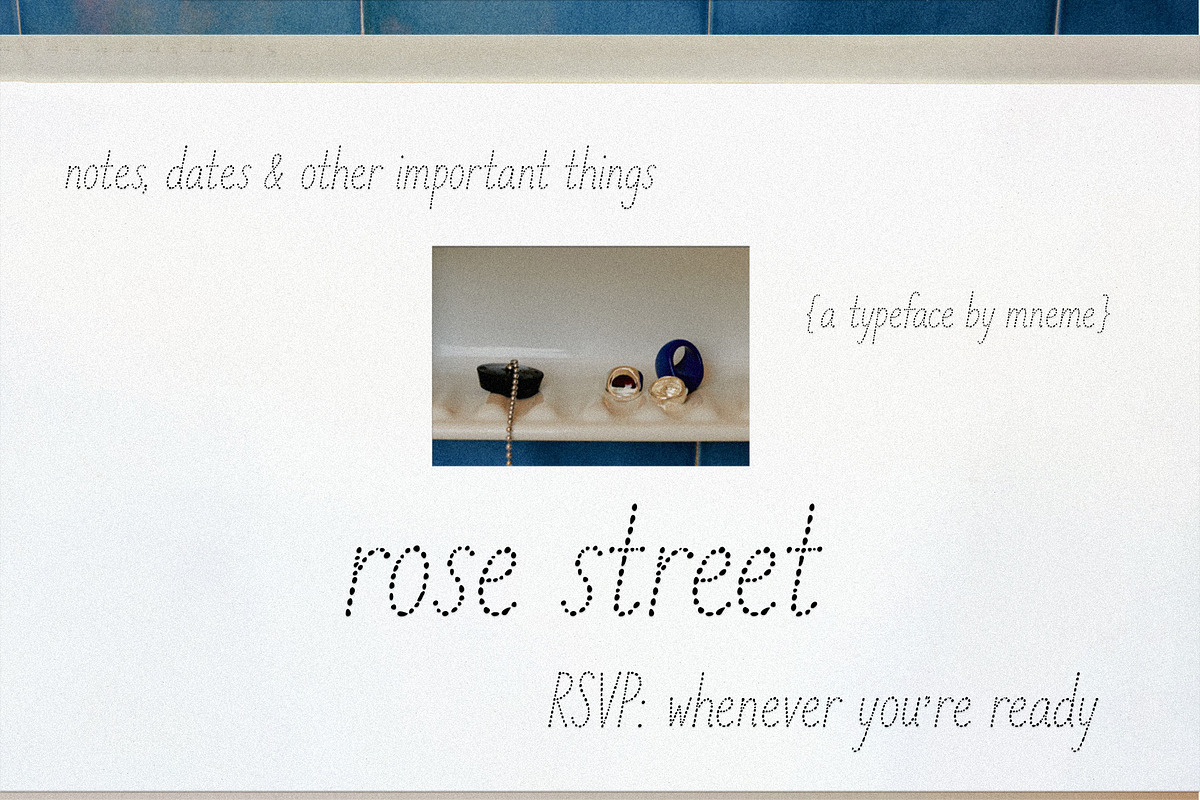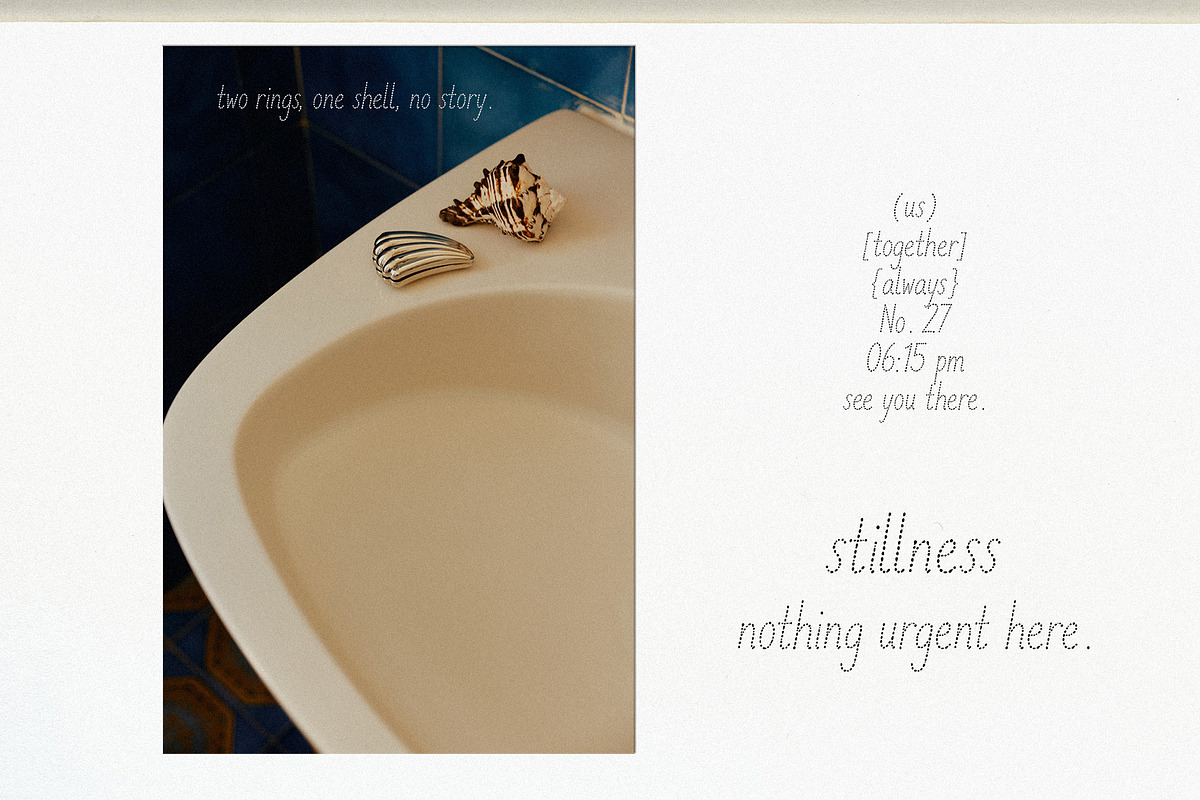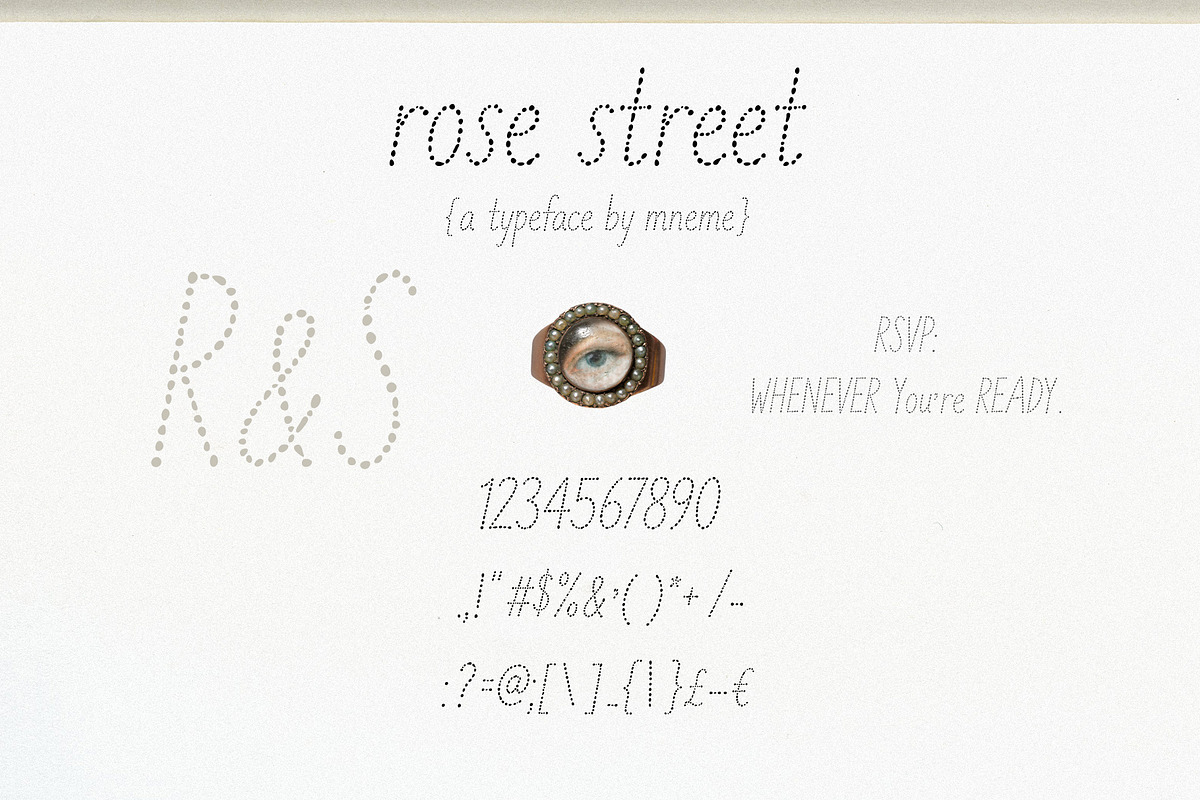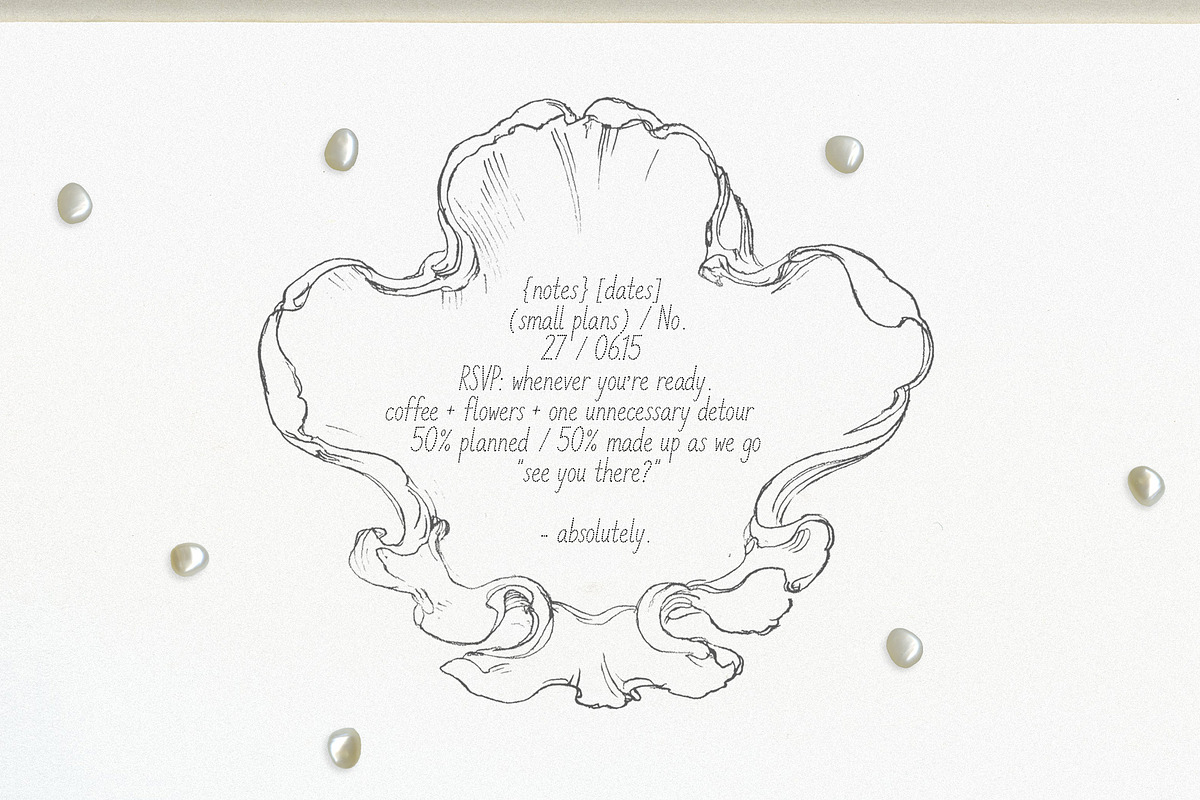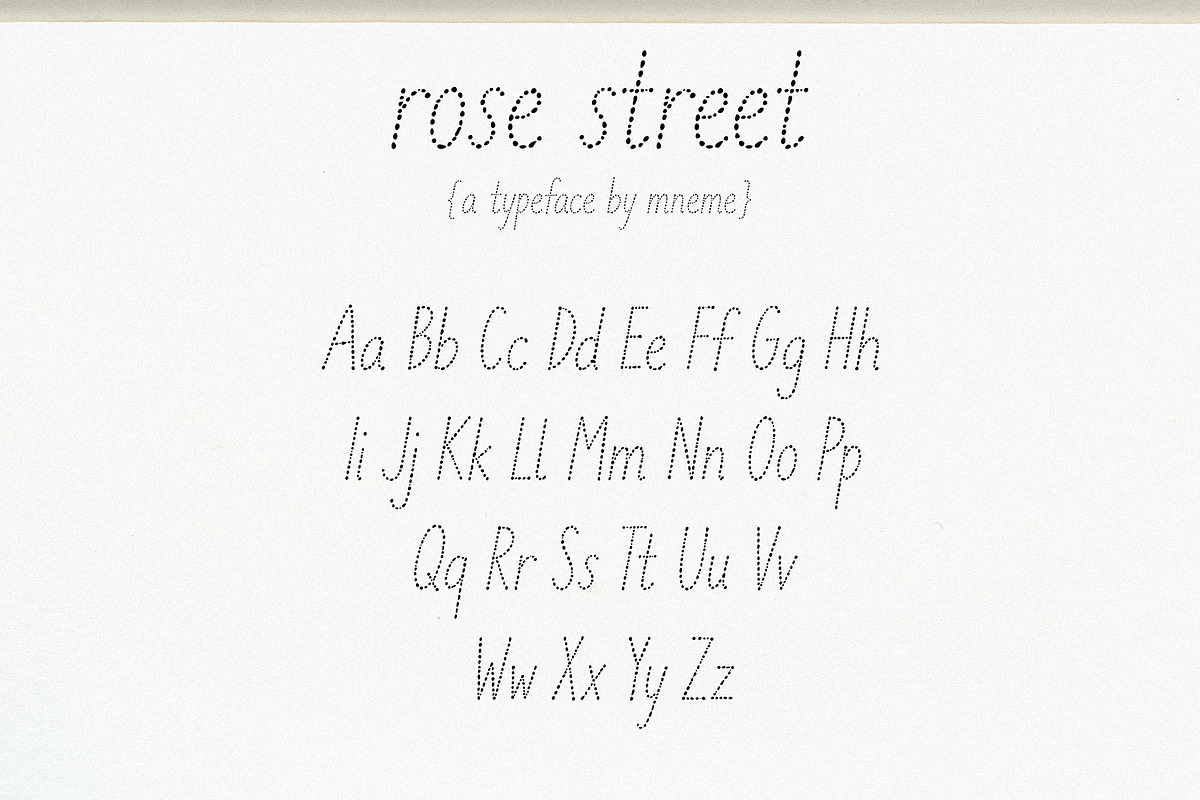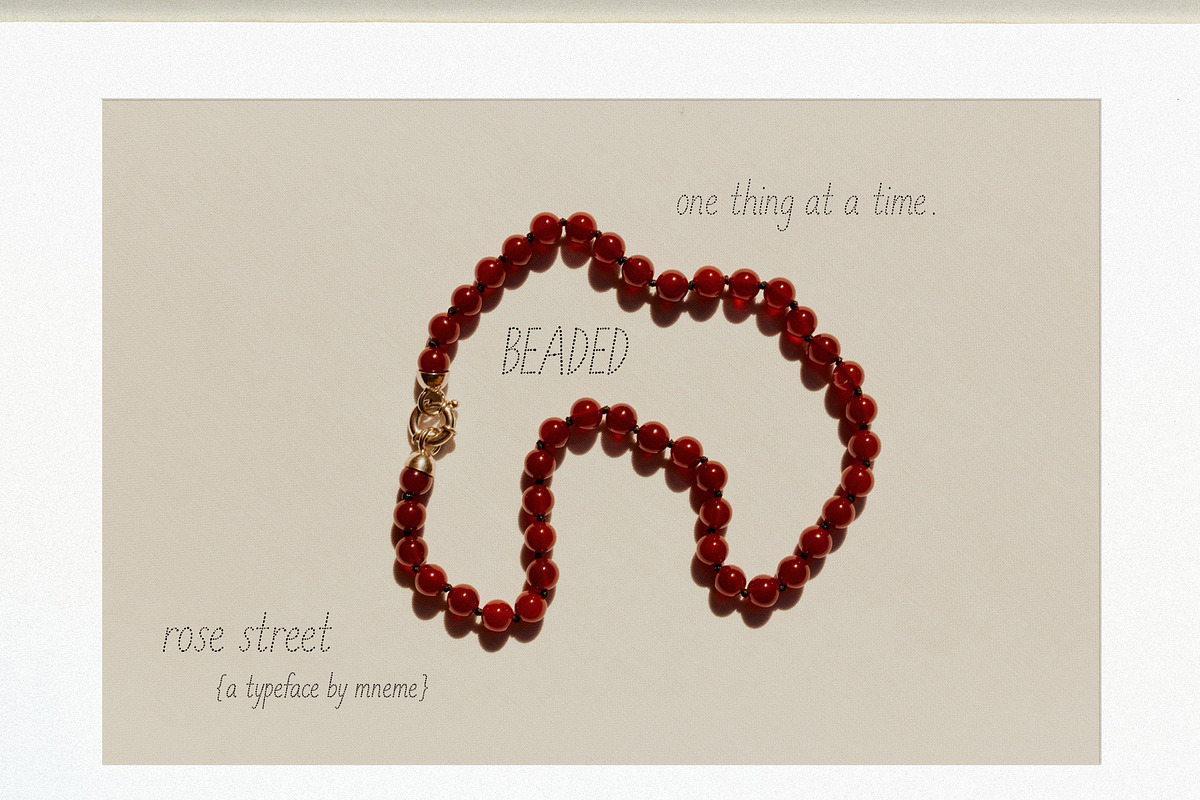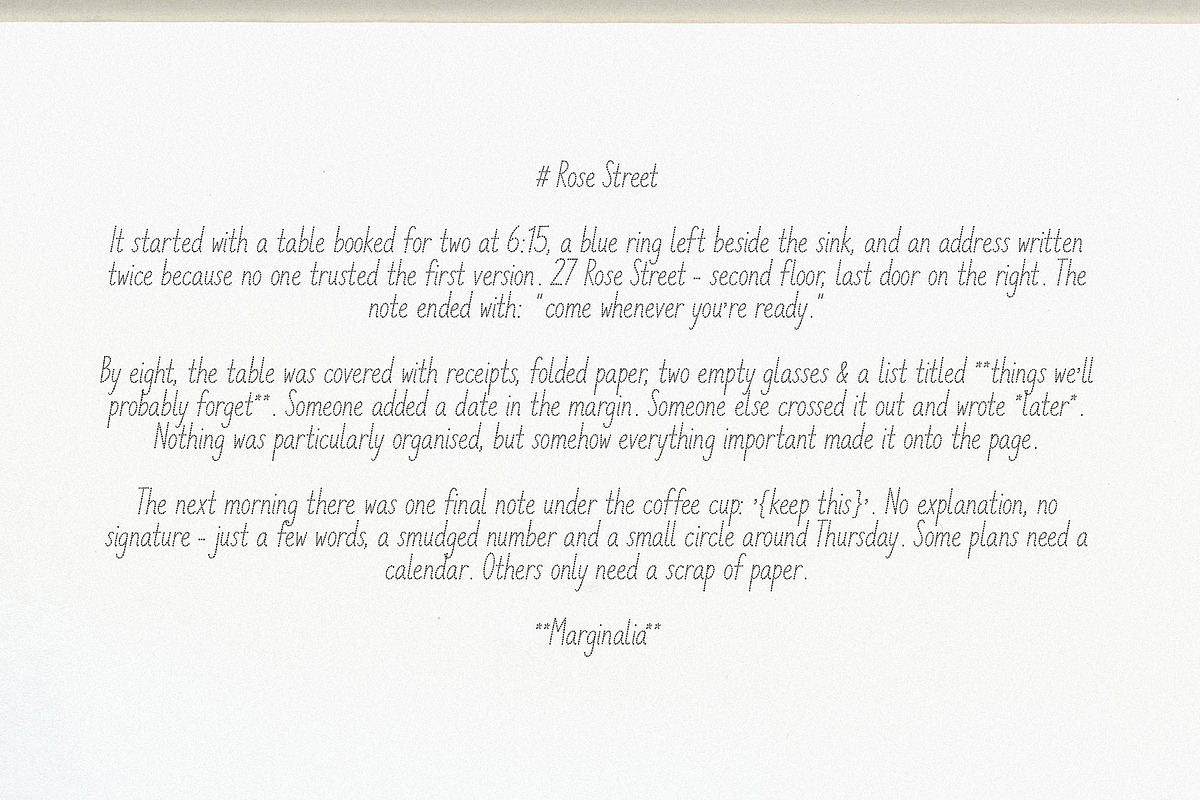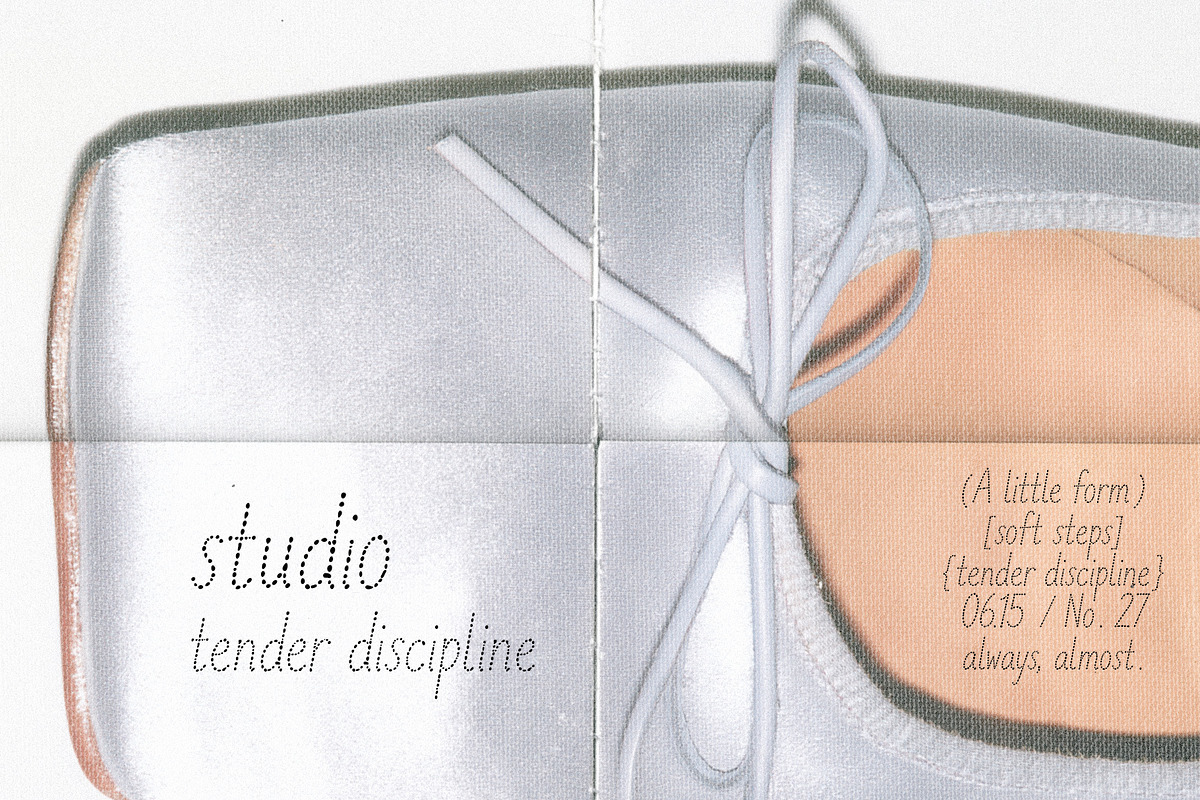
Rose Street - Dotted Font
Rose Street is a delicate dotted handwritten font made from tiny round marks, with tall, narrow letterforms and a softly irregular rhythm.
Personal but polished, it works especially well in editorial layouts, fashion and beauty branding, invitations, stationery, packaging, magazine graphics and short handwritten notes. The punctuation and symbols are an important part of its character — perfect for dates, addresses, captions and small typographic details.